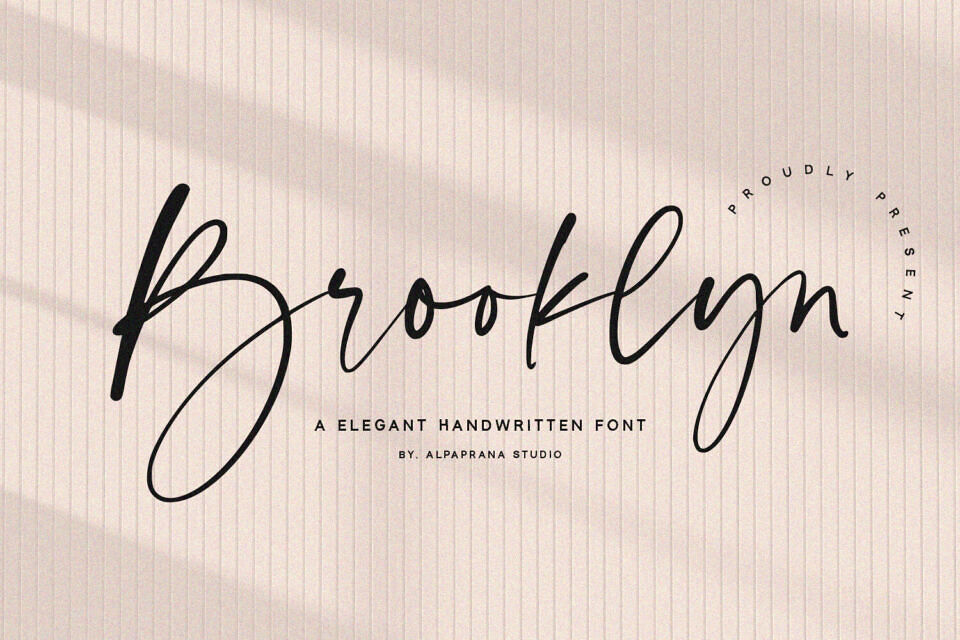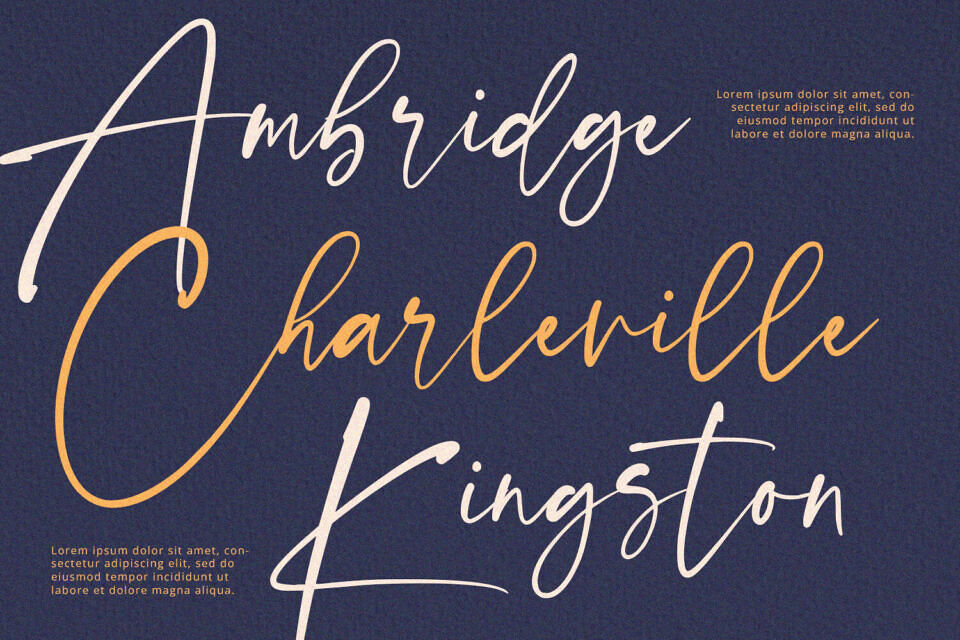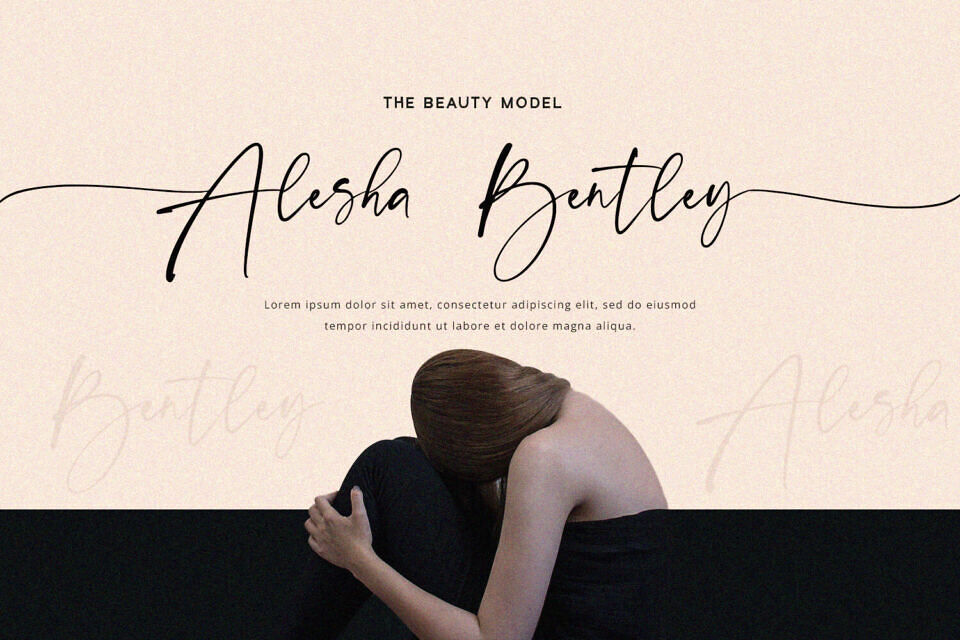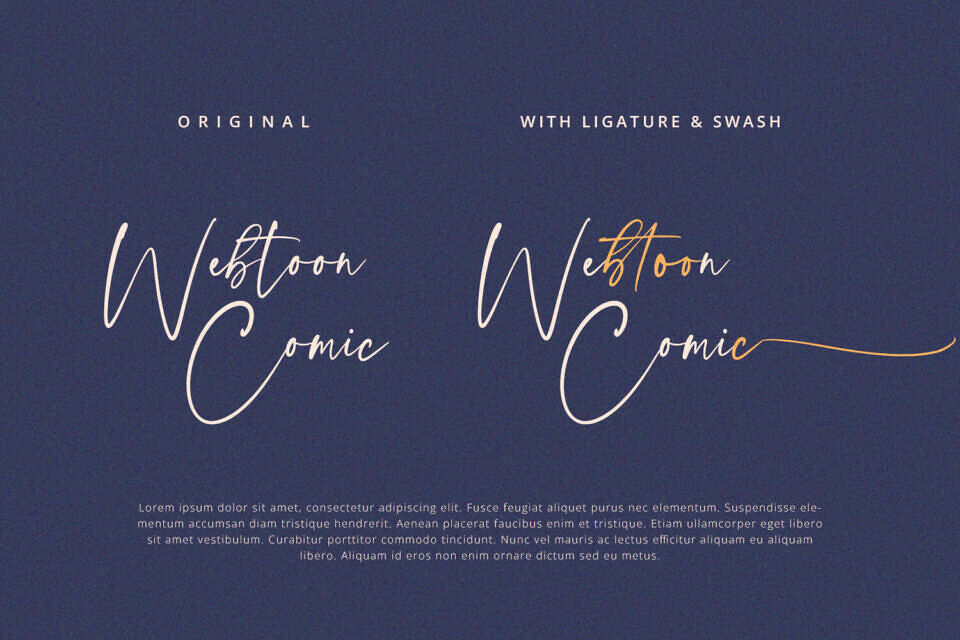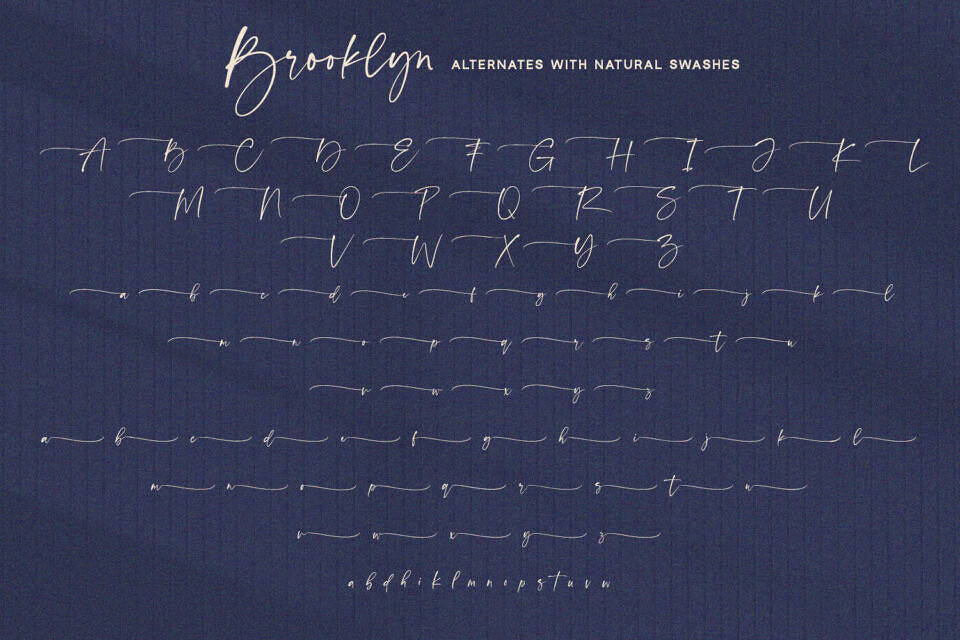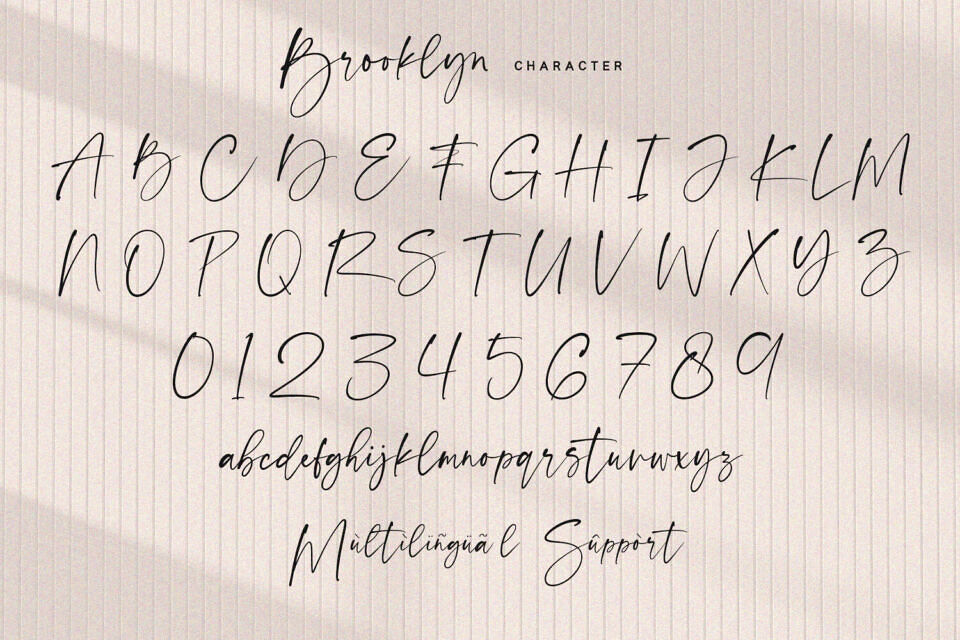
Meet Brooklyn: a dazzling handwritten script font that exudes urban sophistication and charm. Its flowing, confident strokes and stylish flair make it perfect for invitations, branding, and editorial designs. Brooklyn brings a personal touch to any project, combining elegance with a contemporary, artisanal twist.